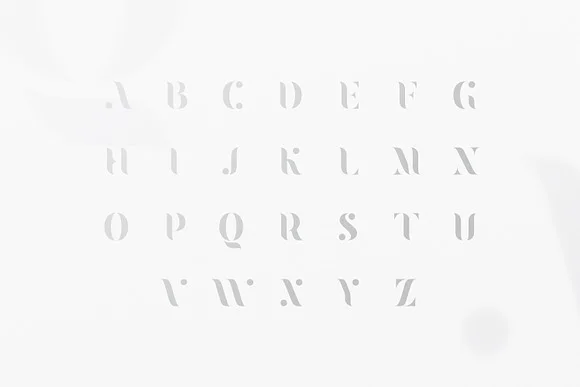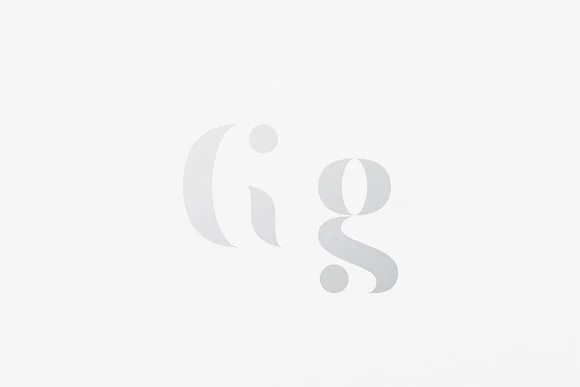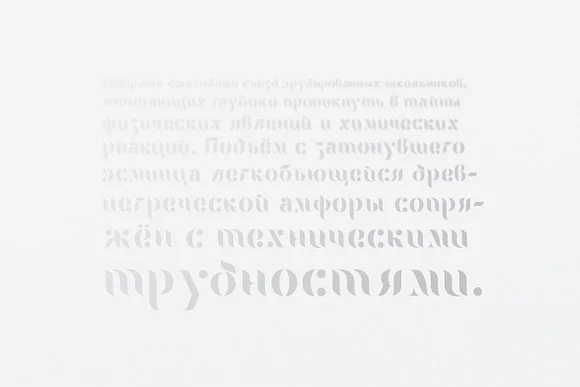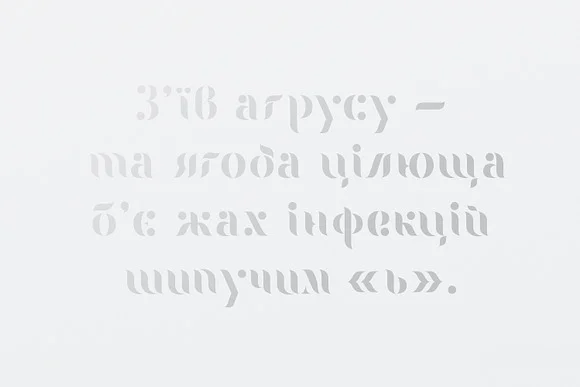
Arcane Font
Arcane is a versatile typeface crafted for designers who demand both personality and precision in their work.
The font excels in creative briefs that call for strong visual identity — from startup branding to editorial design.
The design strikes a careful balance between geometric structure and humanist warmth, giving it broad appeal across design disciplines.